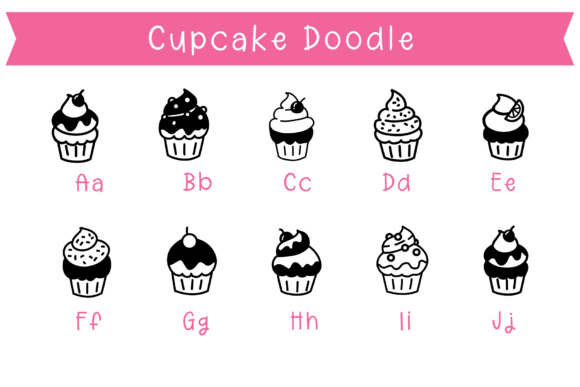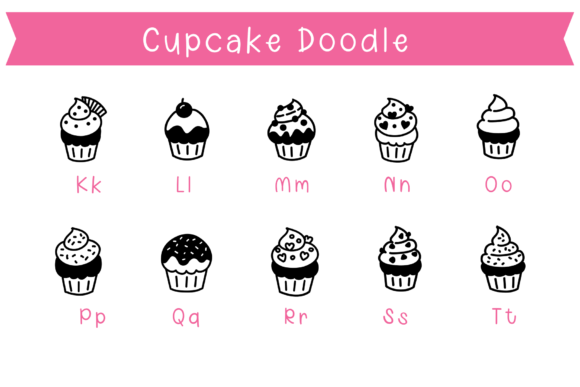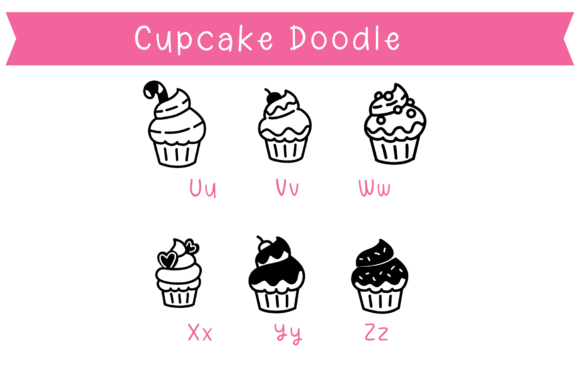
Introduction to Cupcake Doodle Font
Cupcake Doodle is a delightful dingbats font that brings a sweet touch to any design.
Packed with adorable icons of cupcakes, frosting, sprinkles, and more, this font is a treat for the eyes Perfect for adding a playful element to invitations, greeting cards, and party decorations, Cupcake sprinkles joy and happiness wherever it’s used.
Key Features of Cupcake Doodle Font
Why Choose Cupcake Doodle Font?
Cupcake Doodle Font offers exceptional quality and versatility, making it a valuable addition to your design toolkit. Whether you’re creating for personal projects or commercial use, Cupcake Doodle Font delivers professional results.